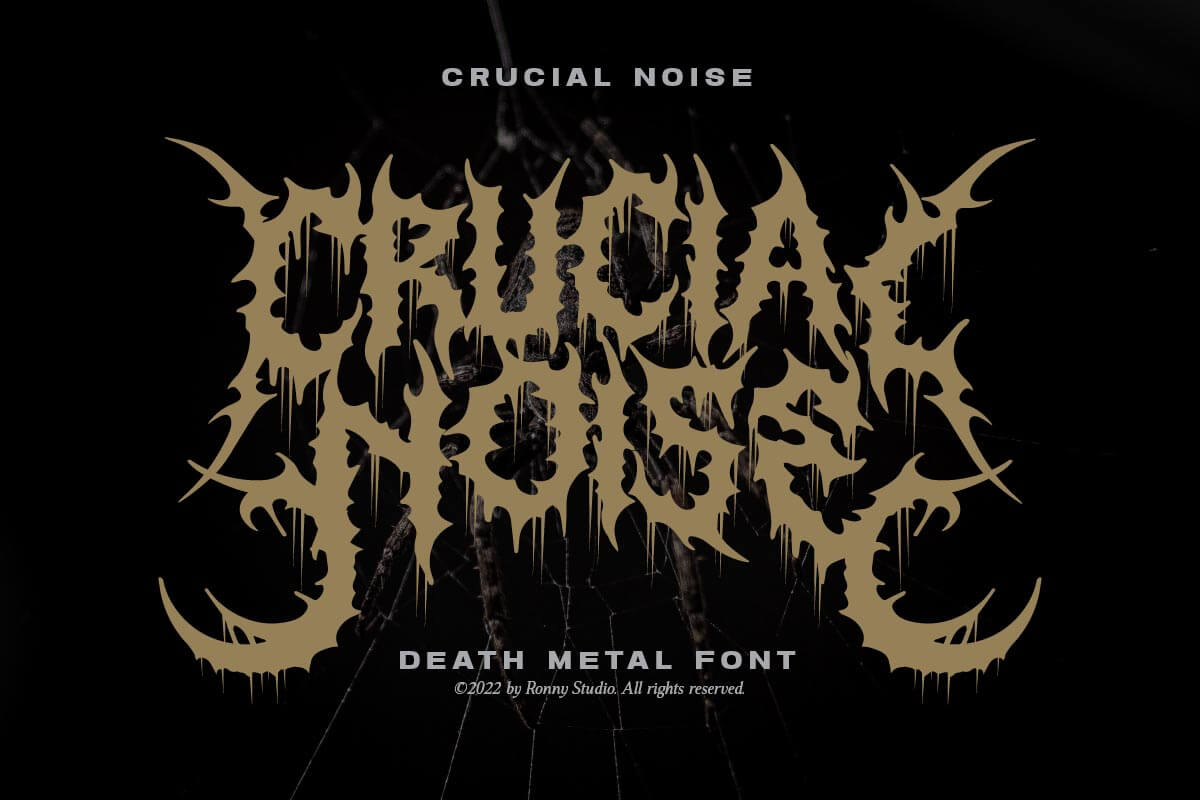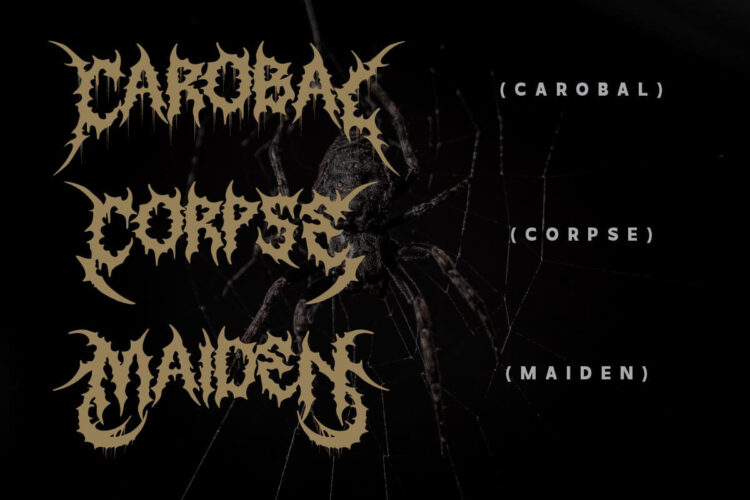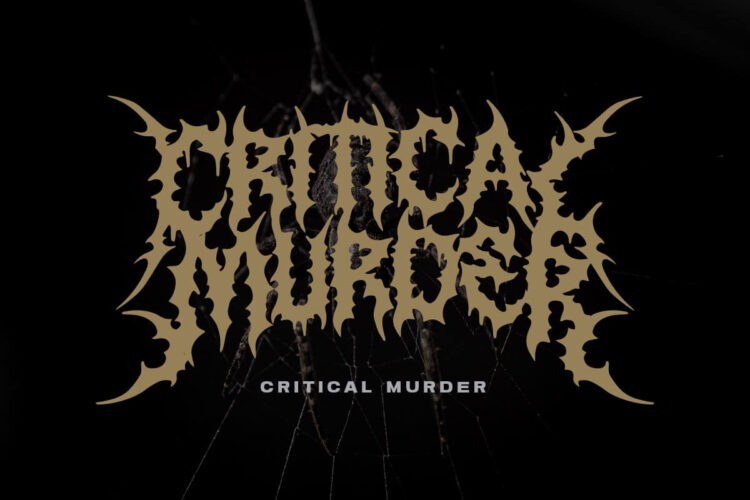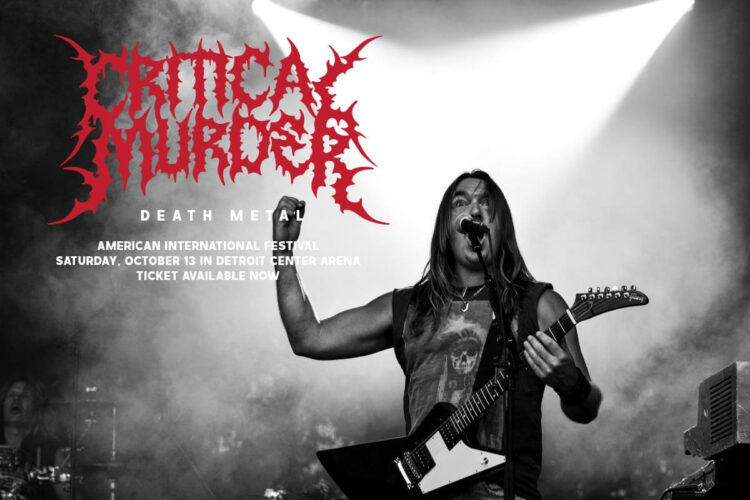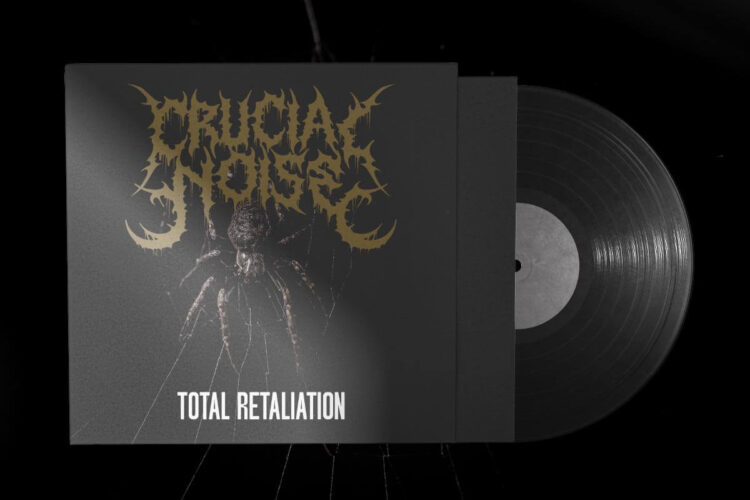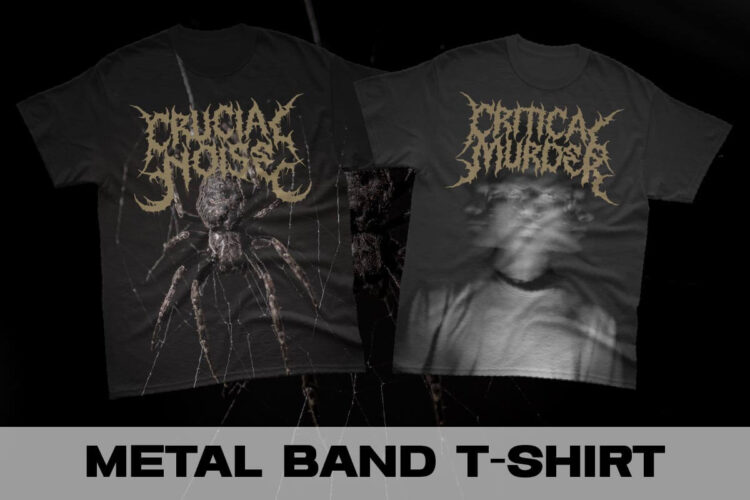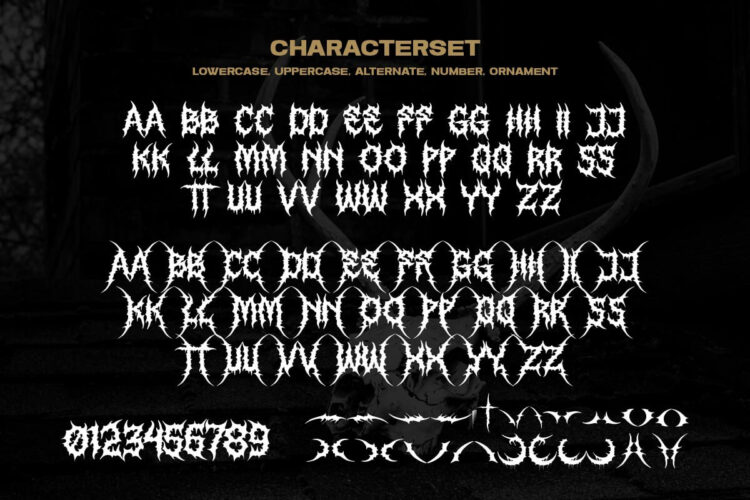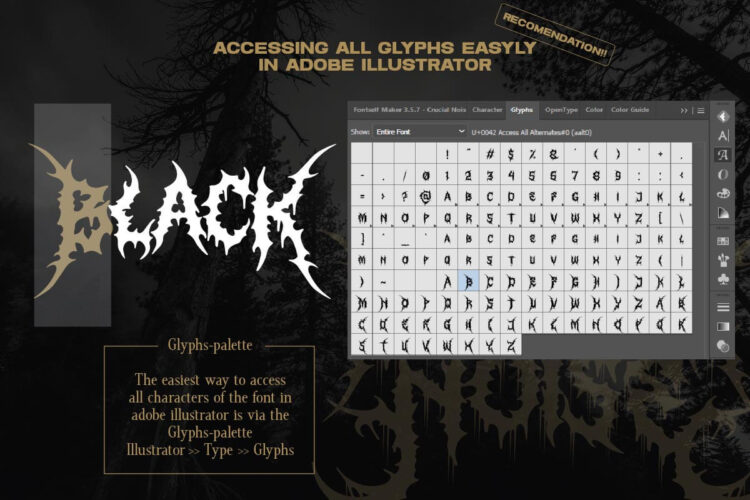
Crucial Noise
Crucial Noise Ornament
Crucial Noise – Death Metal Font for Bold and Aggressive Designs
Introducing Crucial Noise, a raw and aggressive death metal font designed to make a powerful statement. Inspired by the rebellious energy of underground metal culture, Crucial Noise features jagged, distorted letterforms and a dark aesthetic that’s perfect for band logos, album covers, posters, merchandise, and extreme branding projects.
This font delivers boldness and attitude, adding an authentic death metal edge to your designs.
Key Features:
• Death Metal Style – Bold, distorted characters with a dark, rebellious feel.
• Complete Character Set – Includes uppercase, lowercase, numbers, punctuation, and multilingual support.
• Versatile Applications – Ideal for band logos, posters, merchandise, social media graphics, and more.
Perfect For:
• Death metal and underground band branding
• Album covers, tour posters, and promotional materials
• Merchandise like t-shirts, hoodies, and stickers
• Extreme sports and edgy product packaging
• Social media graphics for the metal and rock scenes
• Projects demanding an aggressive, bold, and impactful font style
Let Crucial Noise bring raw energy and attitude to your designs.
This death metal font is built for designers who need authentic extreme typography. If you’re searching for a high-quality death metal font, Crucial Noise delivers brutal and professional results.